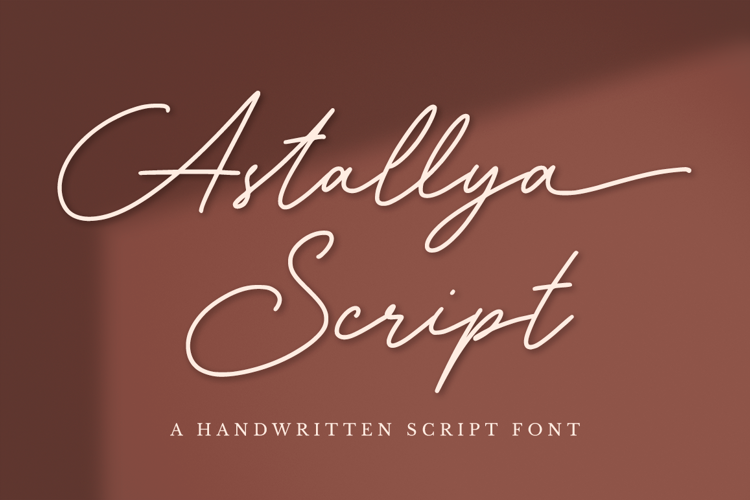
Astallya Script Font
Astallya Script is a modern signature font which is combining classic calligraphy with a modern style. Its dancing baseline will give your design an elegant and modern touch.